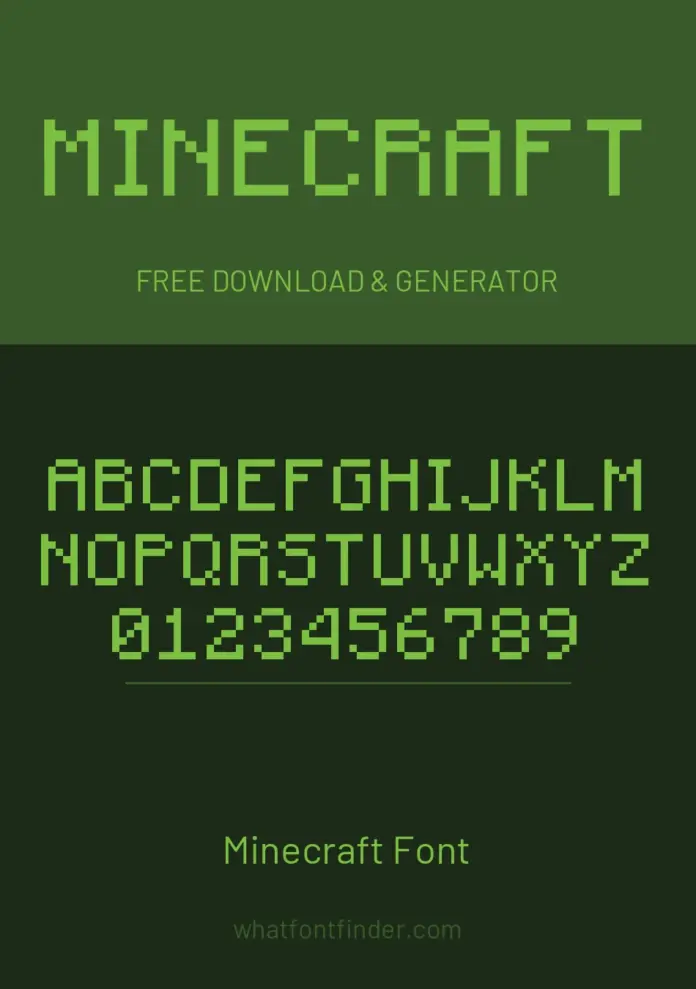
What font does Minecraft use?
Two different answers get mixed together here, and the difference decides what you can actually download.
The Minecraft logo — the chunky, chiselled wordmark on the title screen — is custom artwork. It was drawn with beveled stone-like edges for that one purpose and was never released as a typeface, so there is no complete alphabet of it to install. Any site offering you “the Minecraft logo font” is offering a fan recreation, whether or not it says so.
The in-game font is a different thing entirely: the pixel typeface used for menus, signs, chat, item names and the inventory screen. That is the one most people actually want, because it is what makes text read as Minecraft, and unlike the logo it covers a full character set.
The font on this page
The font in the generator above is Minecraft by Idrees Hassan — an independent recreation of the in-game UI typeface, built from scratch to match how the characters look in the game. It contains no files or assets from Minecraft itself.
It ships in Regular and Bold. Because it is a pixel design, it looks sharpest at whole-number sizes — 16px, 32px, 48px and so on. Half sizes make the pixel grid fall between screen pixels and the edges go soft, which is the usual reason a pixel font looks slightly wrong.
What it is good for
- YouTube thumbnails and channel art for Minecraft videos
- Server banners, Discord graphics and wiki headers
- Birthday invitations, posters and printable party decorations
- Texture-pack and mod documentation that needs to look native
- Any pixel-art project that wants readable text rather than hand-placed blocks
Is this the exact font used for Minecraft?
Not exactly. The original lettering was custom drawn or is not publicly licensed, so the fonts here are close recreations. Minecraft is the nearest match we have found.